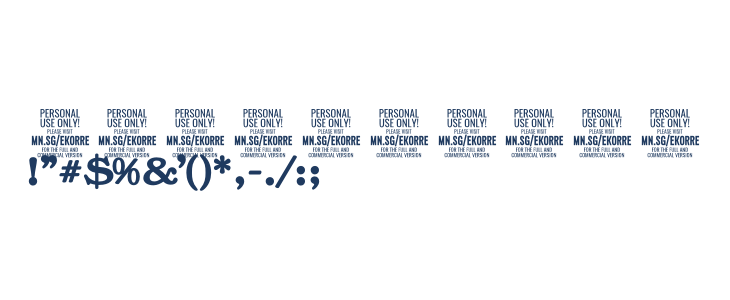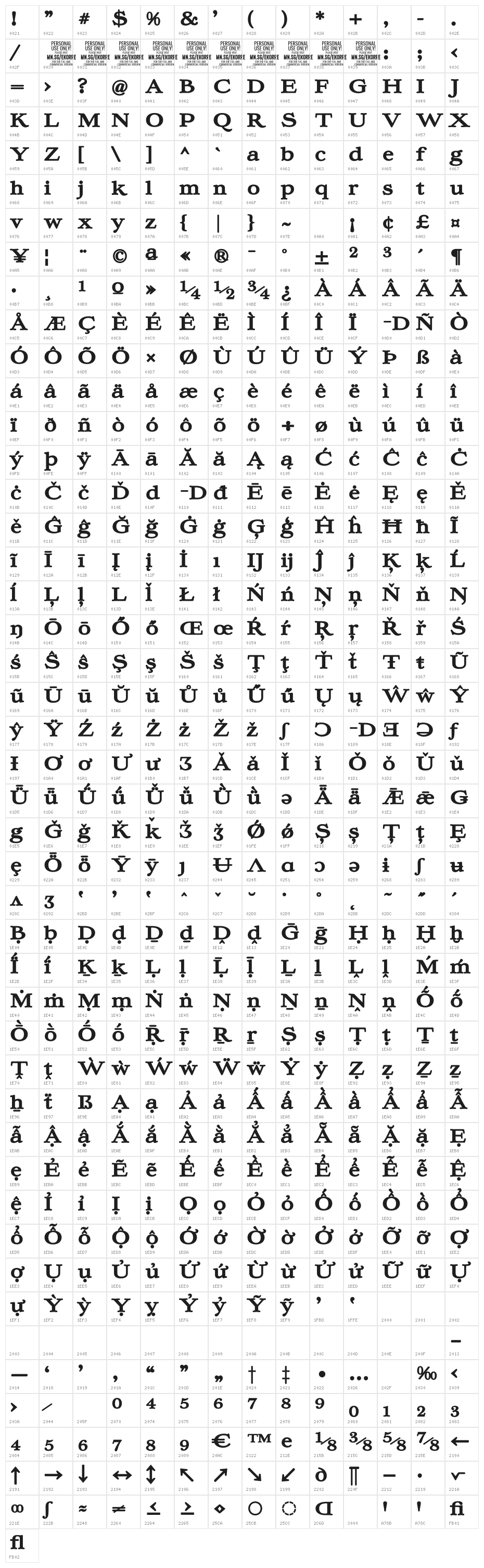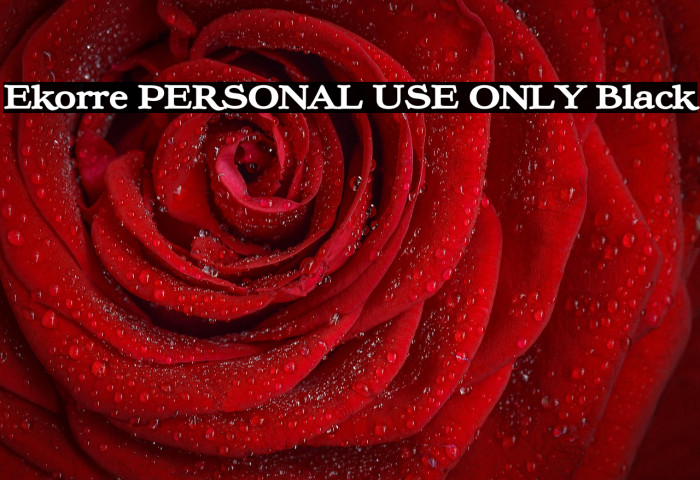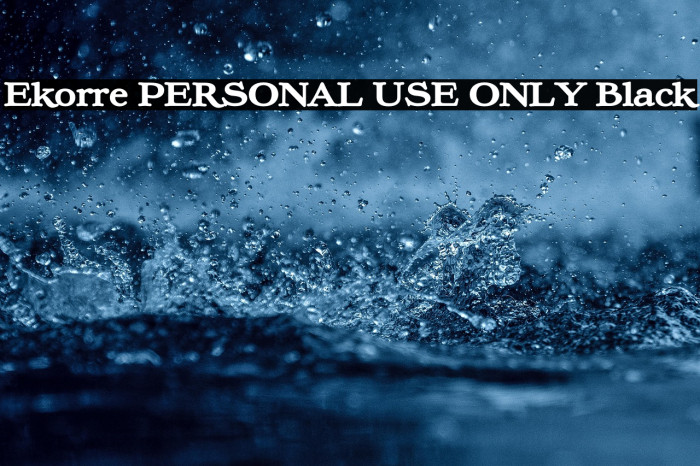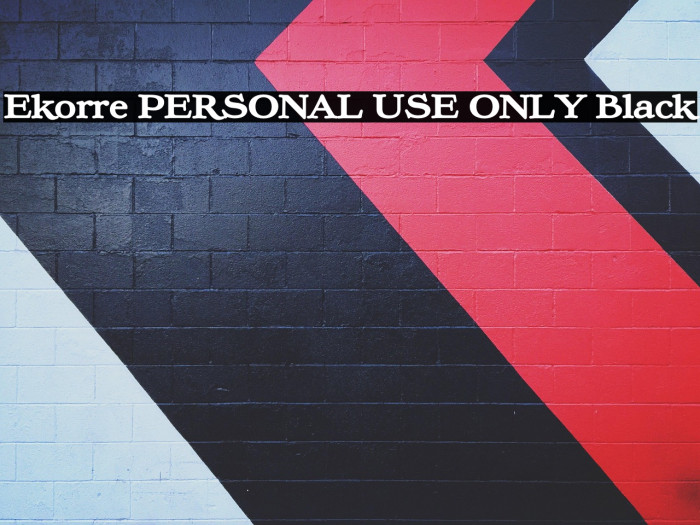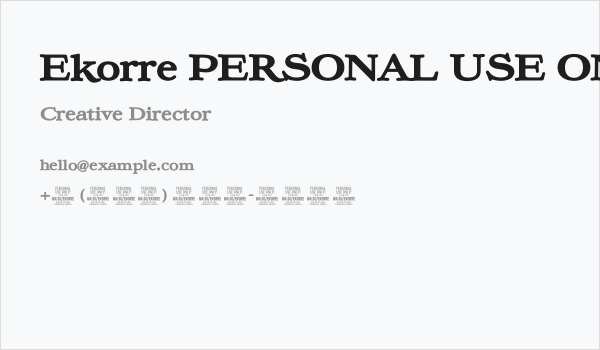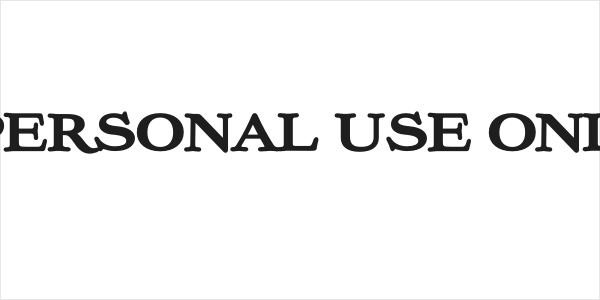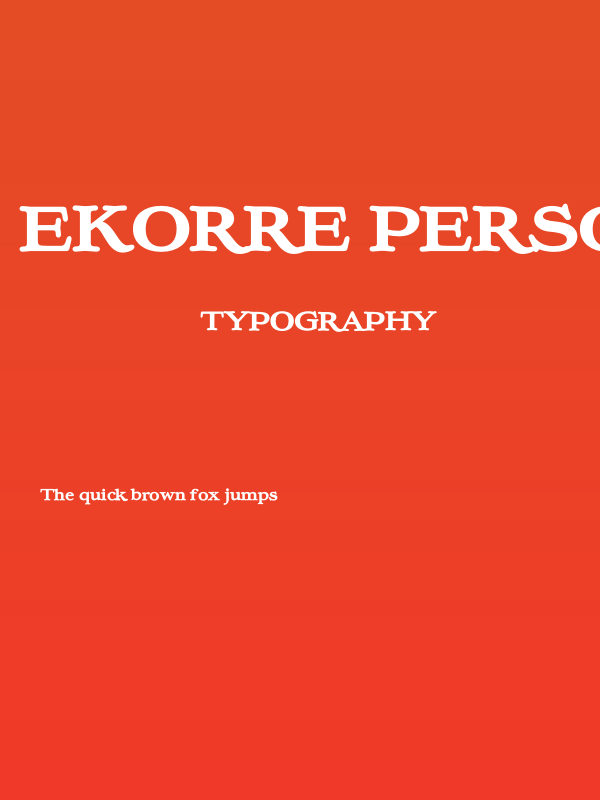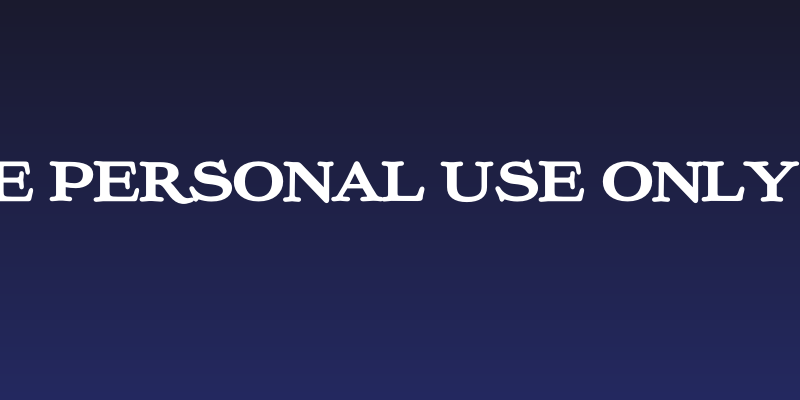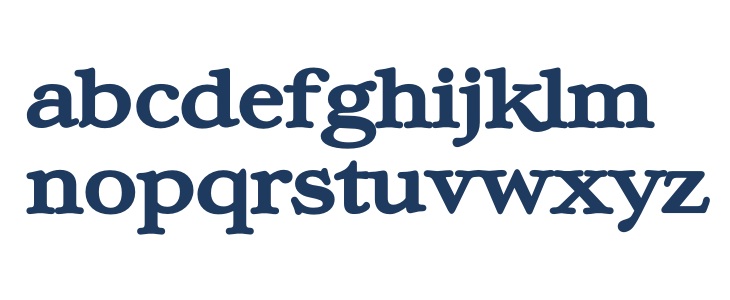
Ekorre PERSONAL USE ONLY Black Font
Ekorre PERSONAL USE ONLY Black Description
This font features a bold and robust serif style with strong, pronounced strokes and a classic appearance. The uppercase letters are characterized by their traditional serif elements, providing a sense of formality and elegance. The lowercase letters maintain a consistent style, with rounded edges and a slightly condensed form, enhancing readability. The numerals are clear and well-defined, matching the overall boldness of the alphabet characters. Special characters are included, maintaining the same stylistic integrity. This font is suitable for projects that require a touch of sophistication and authority.
| Use Case | Headlines, Logos, Editorial design |
| Proposed Projects | Ideal for book covers, formal invitations, branding materials, and editorial design. |